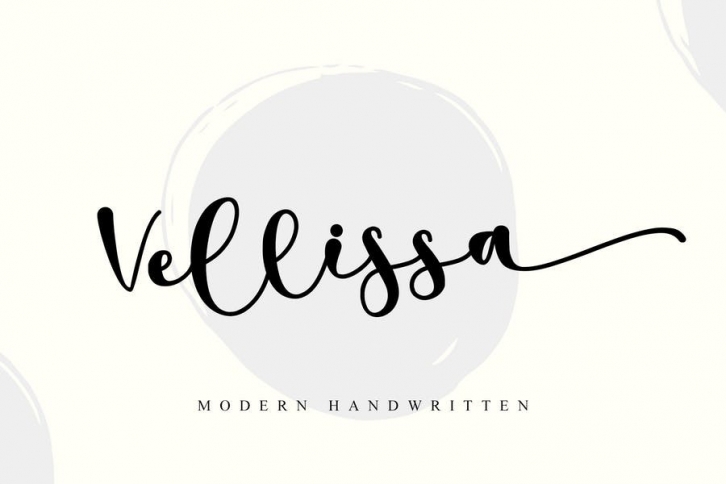
Vellissa is a sweet and beautiful handwritten font. It has a classy, elegant, and modern look which can be used for logos, branding, invitations, stationery, valentine's day, wedding designs, social media posts, and much more. This font is PUA encoded which means you can access all of the beautiful glyphs and swashes with ease!
- Support multilingual; ä ö ü Ä Ö Ü ß ¿ ¡
- Numerals & Punctuation
- lowercase and uppercase letters
- Alternate, Swash & ligature